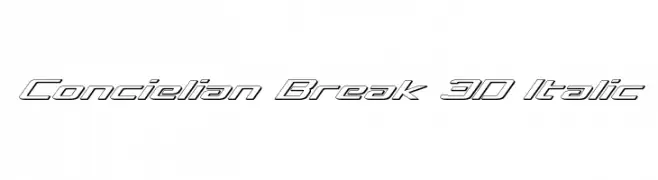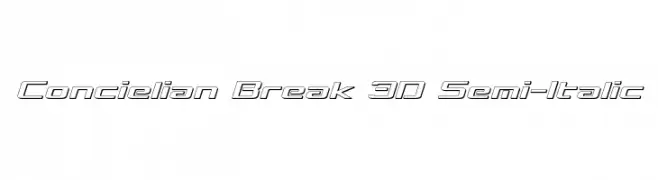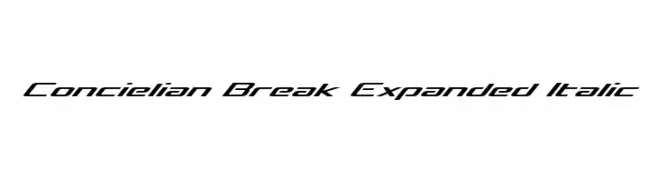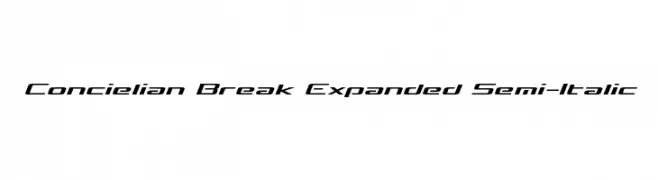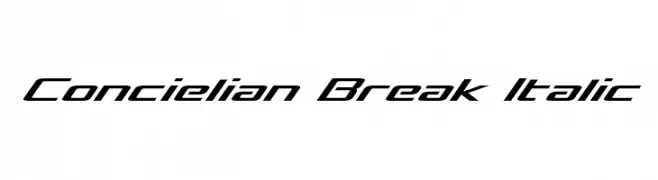
A 3D italic font with a modern, geometric style.
A modern, 3D semi-italic font with outlined, geometric characters.
A sleek, modern, condensed italic font with dynamic angles.
A modern, condensed, semi-italic font with a sleek, angular design.
A sleek, futuristic font with expanded and italicized characters.
A futuristic, expanded semi-italic font with a dynamic and sleek style.
A sleek, italicized font with a futuristic and dynamic design.
A futuristic, angular font with sharp edges and a dynamic slant.
A sleek, semi-italic font with a modern and dynamic design.
A modern, condensed italic font with a sleek and dynamic style.